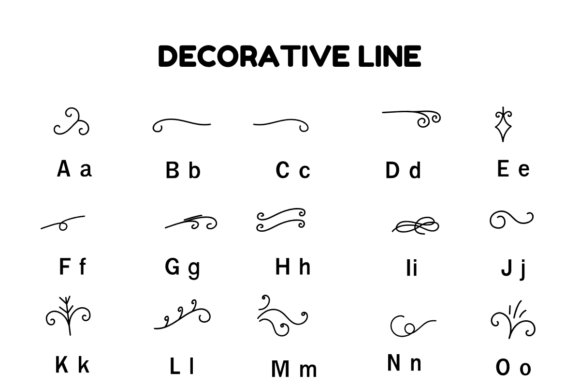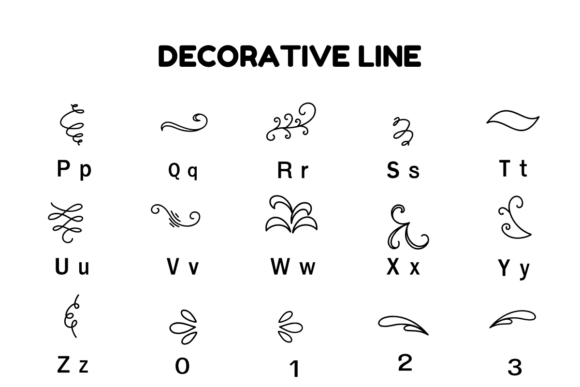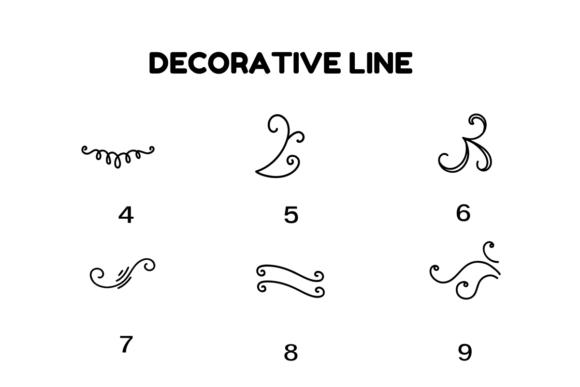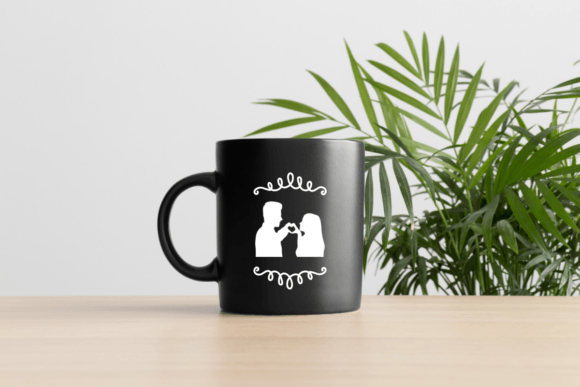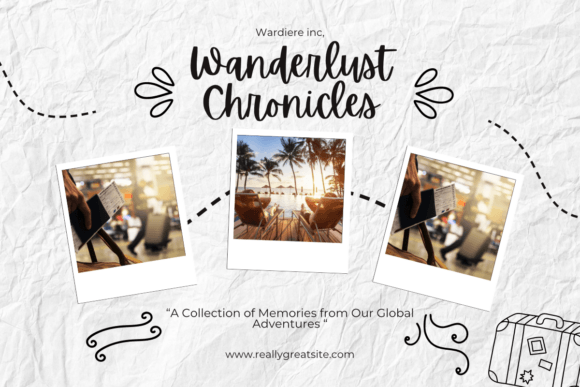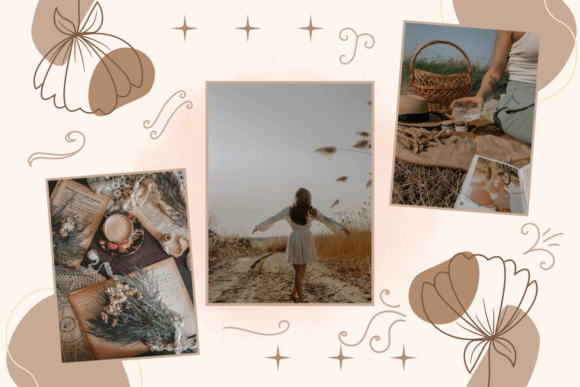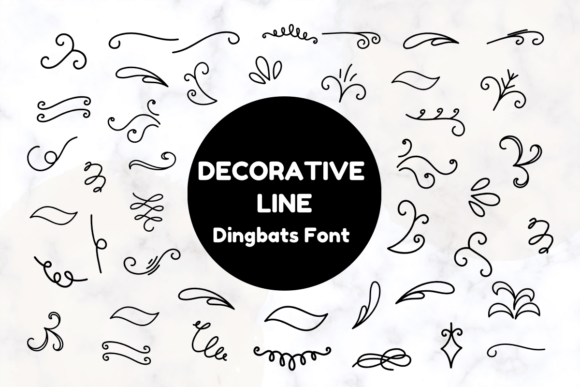
Elevate Your Designs with Decorative Line Font: A Sketch-Style Dingbats Font
Are you a designer, crafter, or DIY enthusiast looking for a unique and creative way to add a personal touch to your projects? Look no further than the Decorative Line Font, a stunning dingbats font with a sketch style theme. This versatile font is perfect for a wide range of creative projects, from wedding invitations and crafts to decorations, logos, and more.
What is Decorative Line Font?
Decorative Line Font is a carefully crafted dingbats font that features a beautiful sketch-style theme. Dingbats fonts, also known as symbol fonts, are a type of font that consists of graphical symbols, such as lines, shapes, and icons, rather than traditional letters and numbers. The Decorative Line Font takes this concept to the next level with its intricate and artistic designs, making it perfect for adding a touch of elegance and sophistication to your projects.
The Decorative Line Font offers a range of features and benefits that make it an ideal choice for designers and crafters. Some of the key features include:
- Sketch-style theme: The font features a beautiful sketch-style theme that adds a personal and artistic touch to your projects.
- Versatile: The font is perfect for a wide range of creative projects, from wedding invitations and crafts to decorations, logos, and more.
- Scalable: The font is scalable, allowing you to use it for projects of all sizes, from small crafts to large-scale designs.
Creative Uses for Decorative Line Font
The Decorative Line Font is a versatile font that can be used in a wide range of creative projects. Here are some ideas to get you started:
- Wedding invitations: Add a touch of elegance and sophistication to your wedding invitations with the Decorative Line Font.
- DIY crafts: Use the font to create personalized DIY crafts, such as customized gift tags, cards, and decorations.
- Decorations: Add a personal touch to your home decorations, such as wall art, signs, and banners.
- Logos: Use the font to create unique and memorable logos for your business or brand.
- Stationery: Create personalized stationery, such as notebooks, journals, and greeting cards.
Tips and Tricks for Using Decorative Line Font
Here are some tips and tricks for using the Decorative Line Font:
- Experiment with different sizes: Experiment with different font sizes to create visual interest and hierarchy in your designs.
- Combine with other fonts: Combine the Decorative Line Font with other fonts to create a unique and visually appealing design.
- Use as a accent: Use the font as an accent font to add a pop of personality to your designs.
- Customize: Customize the font to fit your brand or design style by adjusting the color, texture, and other design elements.
The Decorative Line Font is a beautiful and versatile dingbats font that can elevate your designs and add a personal touch to your creative projects. With its sketch-style theme and wide range of creative uses, this font is perfect for designers, crafters, and DIY enthusiasts of all levels. Whether you’re creating wedding invitations, DIY crafts, decorations, logos, or stationery, the Decorative Line Font is sure to inspire your creativity and take your designs to the next level.